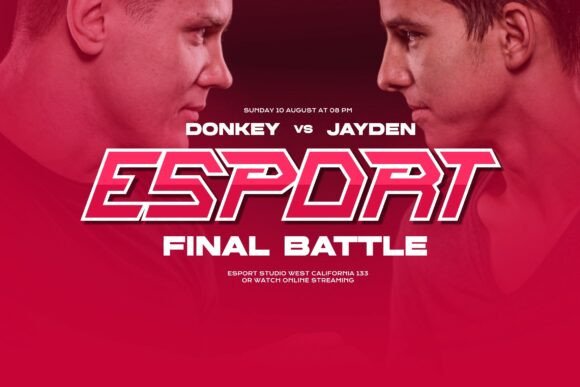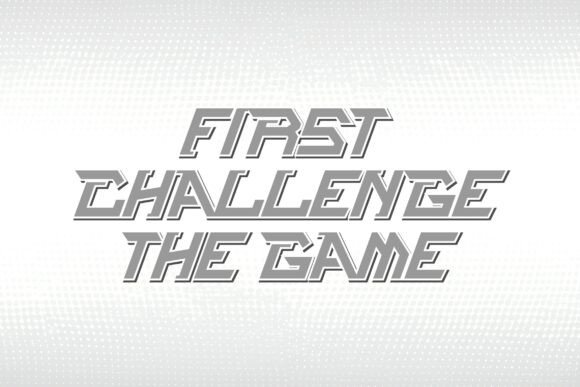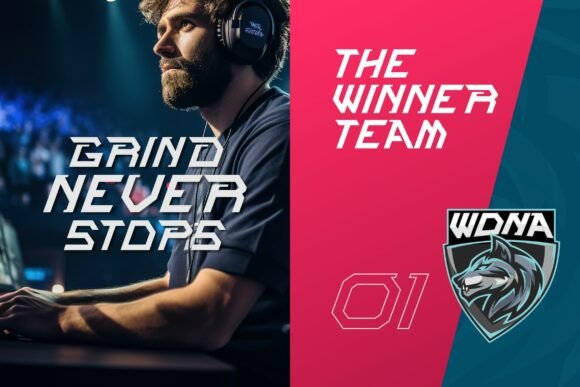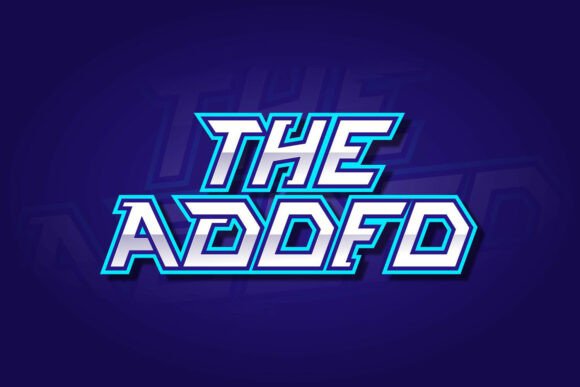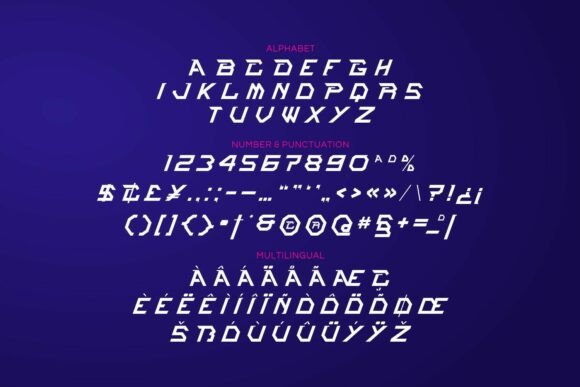
Adofo Font: Unleash the Power of Modern Sports Display Typography
In the world of design, typography plays a crucial role in conveying the tone and personality of a brand or project. For designers and crafters looking for a font that embodies speed, motion, and raw aggression, Adofo is the perfect choice. This modern sports display font is characterized by its forward-slanted letterforms, sharp corners, broken line segments, and bold strokes, making it an ideal visual match for designs that demand a futuristic and high-intensity edge.
The Aesthetic of Adofo Font
Adofo’s unique design is inspired by the aesthetics of tech, cyberpunk, mecha, gaming, and e-sports branding. Its forward-slanted letterforms evoke a sense of speed and motion, as if the font is always racing ahead. The sharp corners and broken line segments add a touch of edginess, while the bold strokes provide a sense of power and strength. This combination of design elements makes Adofo a perfect fit for projects that require a bold, commanding presence.
Use Cases for Adofo Font
Adofo is a versatile font that can be used in a variety of design projects, including:
- Sci-fi films: Adofo’s futuristic and high-tech aesthetic makes it an ideal choice for sci-fi film titles, posters, and marketing materials.
- Battle robot themes: The font’s bold and edgy design is perfect for battle robot game titles, logos, and branding materials.
- Space tournaments: Adofo’s space-age aesthetic makes it a great fit for space-themed tournament logos, posters, and marketing materials.
- Racing games: The font’s speed-inspired design makes it a natural fit for racing game titles, logos, and branding materials.
- Sports titles: Adofo’s bold and commanding presence makes it an excellent choice for sports title logos, posters, and marketing materials.
- Running events: The font’s dynamic and energetic design is perfect for running event logos, posters, and branding materials.
- Cycling gear: Adofo’s bold and edgy aesthetic makes it a great fit for cycling gear logos, posters, and marketing materials.
- Automotive logos: The font’s futuristic and high-tech design makes it an ideal choice for automotive logos, branding materials, and marketing campaigns.
- Posters: Adofo’s bold and commanding presence makes it an excellent choice for posters that require a high-impact, attention-grabbing headline.
- Jersey designs: The font’s sporty and dynamic design makes it a great fit for jersey designs, team logos, and sports branding materials.
- Powerful sports slogans: Adofo’s bold and edgy aesthetic makes it an ideal choice for creating powerful sports slogans that demand attention.
Why Choose Adofo Font?
Adofo offers a unique combination of style, versatility, and impact, making it an excellent choice for designers and crafters looking for a modern sports display font. Here are some reasons why you should choose Adofo:
- Unique design: Adofo’s forward-slanted letterforms, sharp corners, and bold strokes make it a standout font that demands attention.
- Versatility: Adofo can be used in a variety of design projects, from sci-fi films to sports titles, and from posters to jersey designs.
- High-impact: The font’s bold and commanding presence makes it an excellent choice for designs that require a high-impact, attention-grabbing headline.
- Futuristic aesthetic: Adofo’s futuristic and high-tech design makes it an ideal choice for projects that require a modern and edgy look.
| Author | imoodev |
In conclusion, Adofo is a modern sports display font that is perfect for designers and crafters looking for a bold, commanding presence in their designs. Its unique combination of style, versatility, and impact makes it an excellent choice for a variety of design projects, from sci-fi films to sports titles, and from posters to jersey designs. Whether you’re working on a digital or print project, Adofo is sure to bring a high-octane, action-driven vibe to your design.